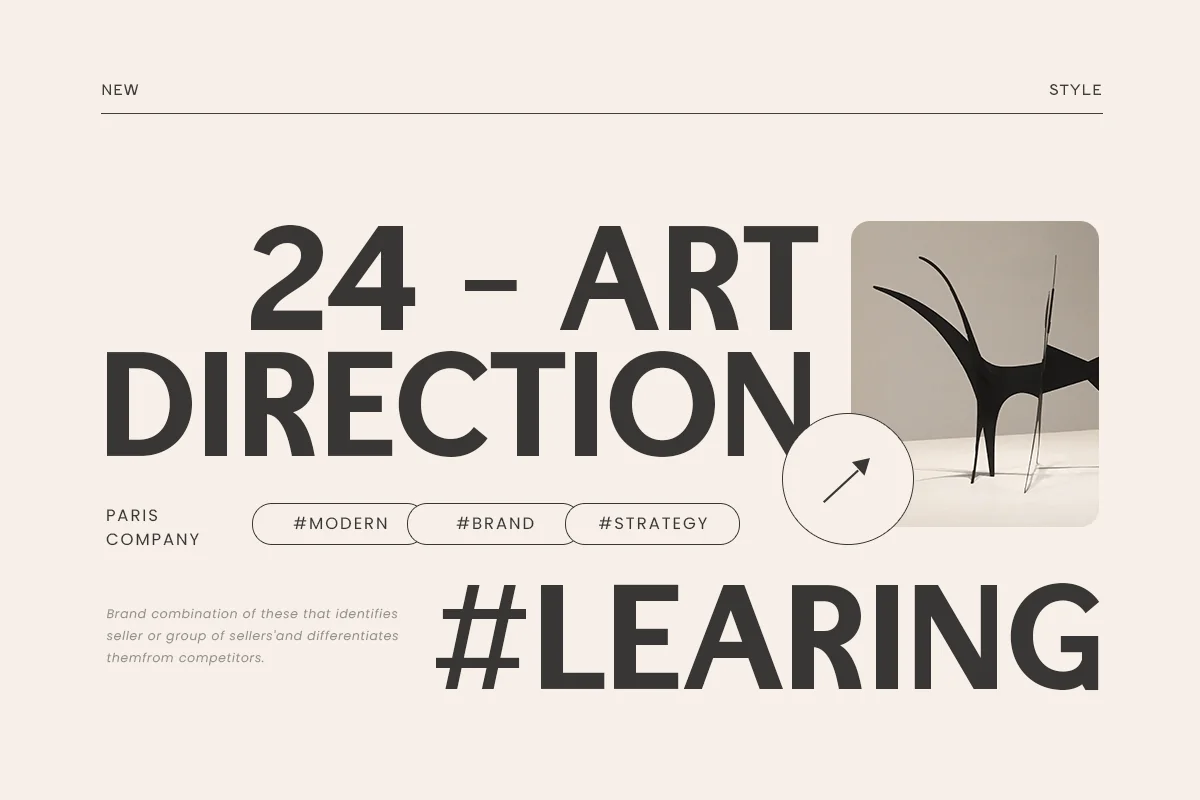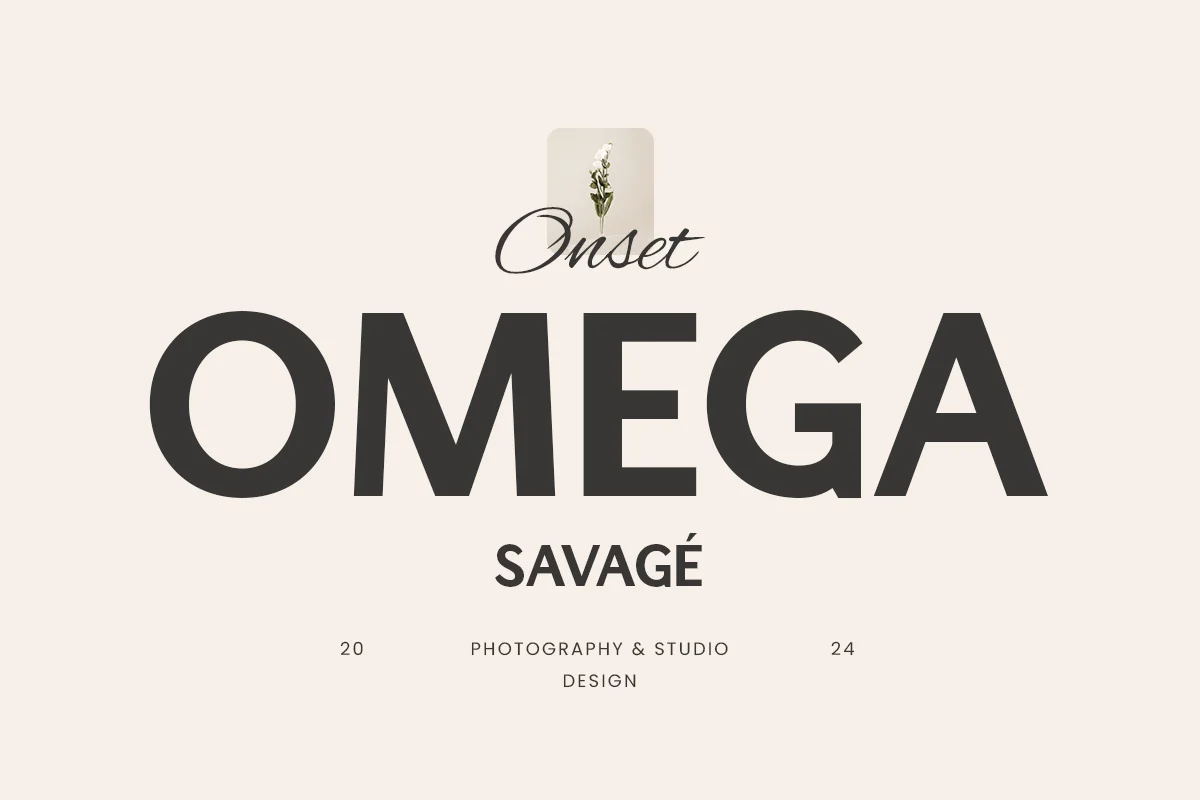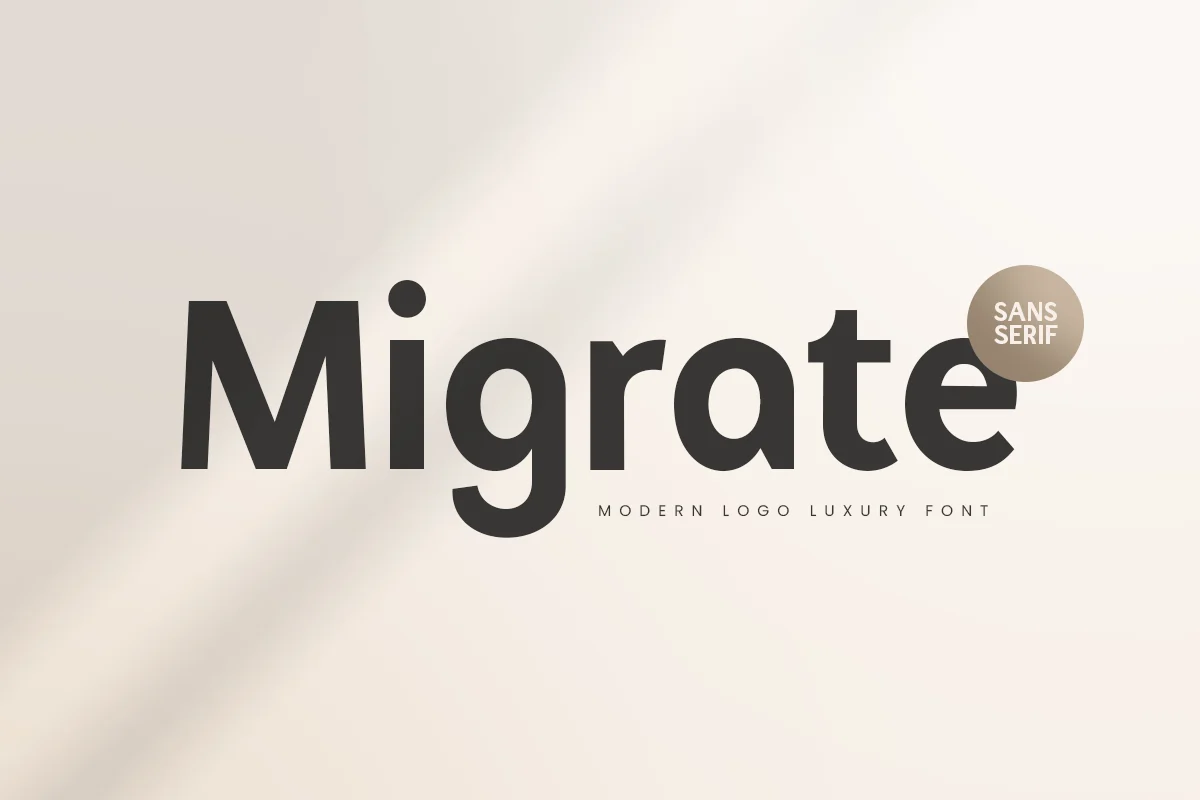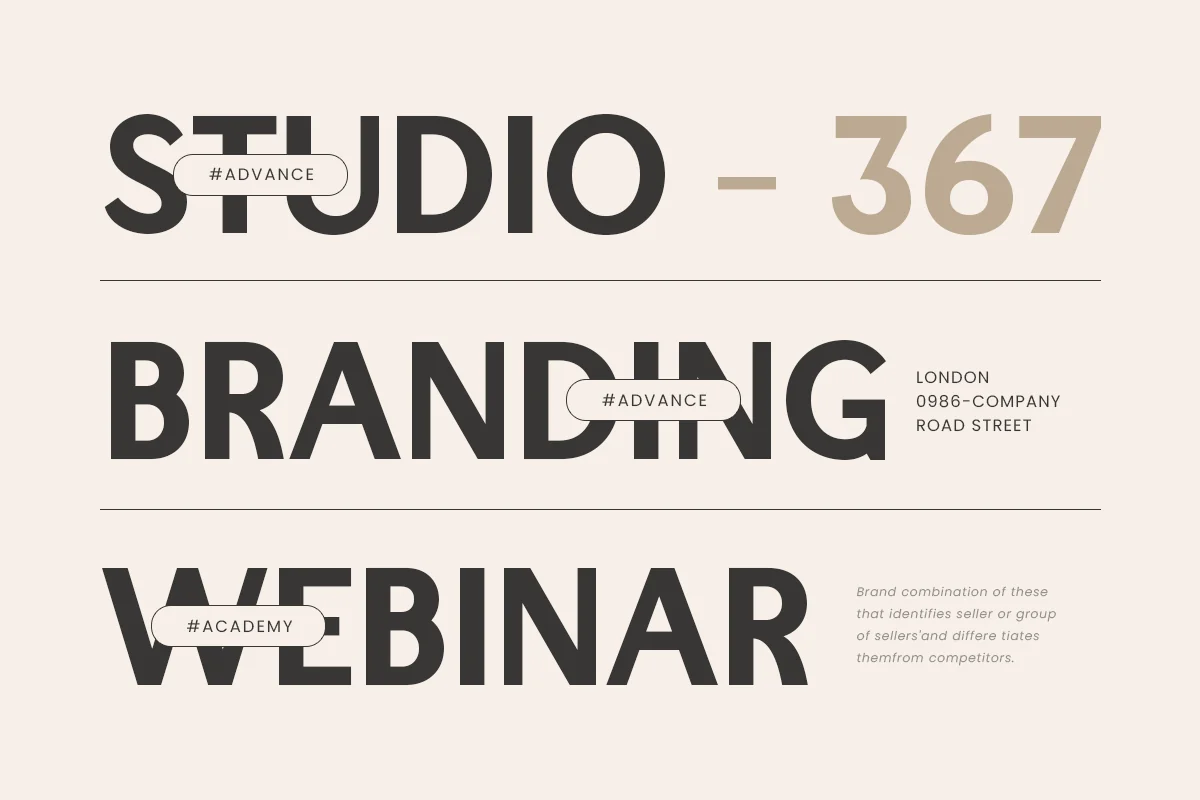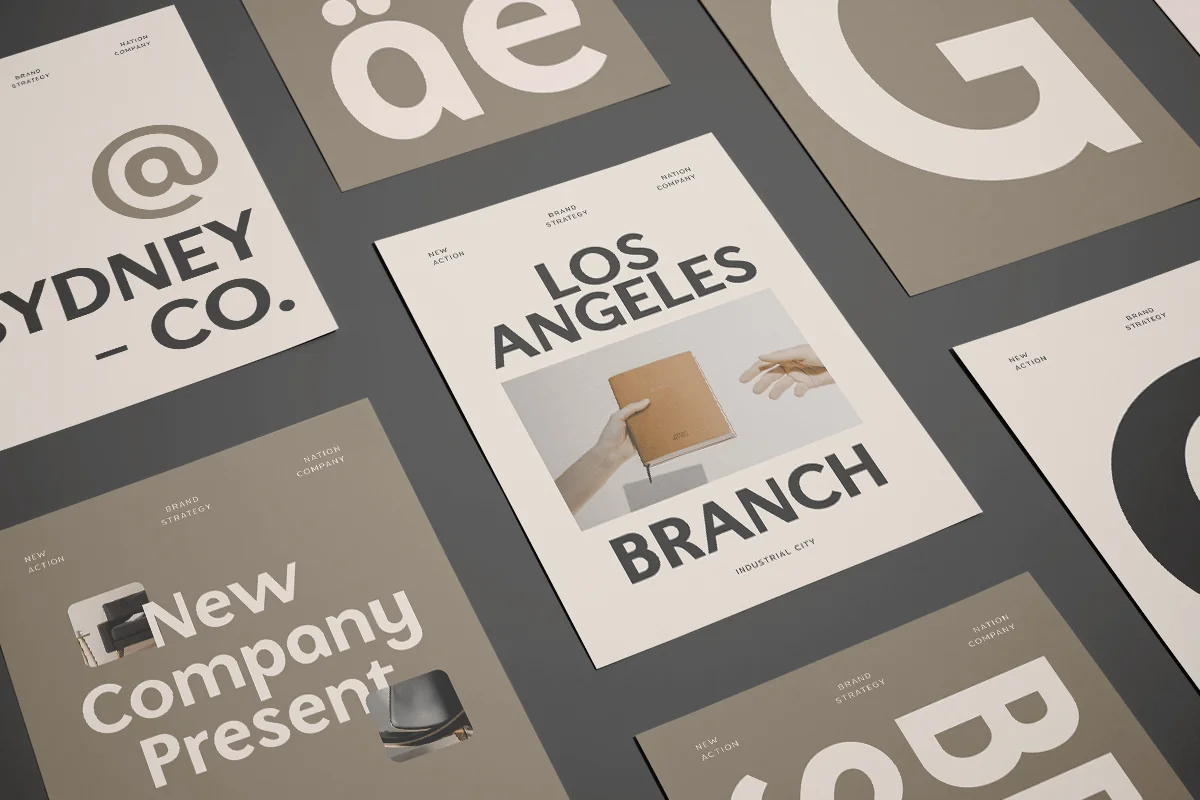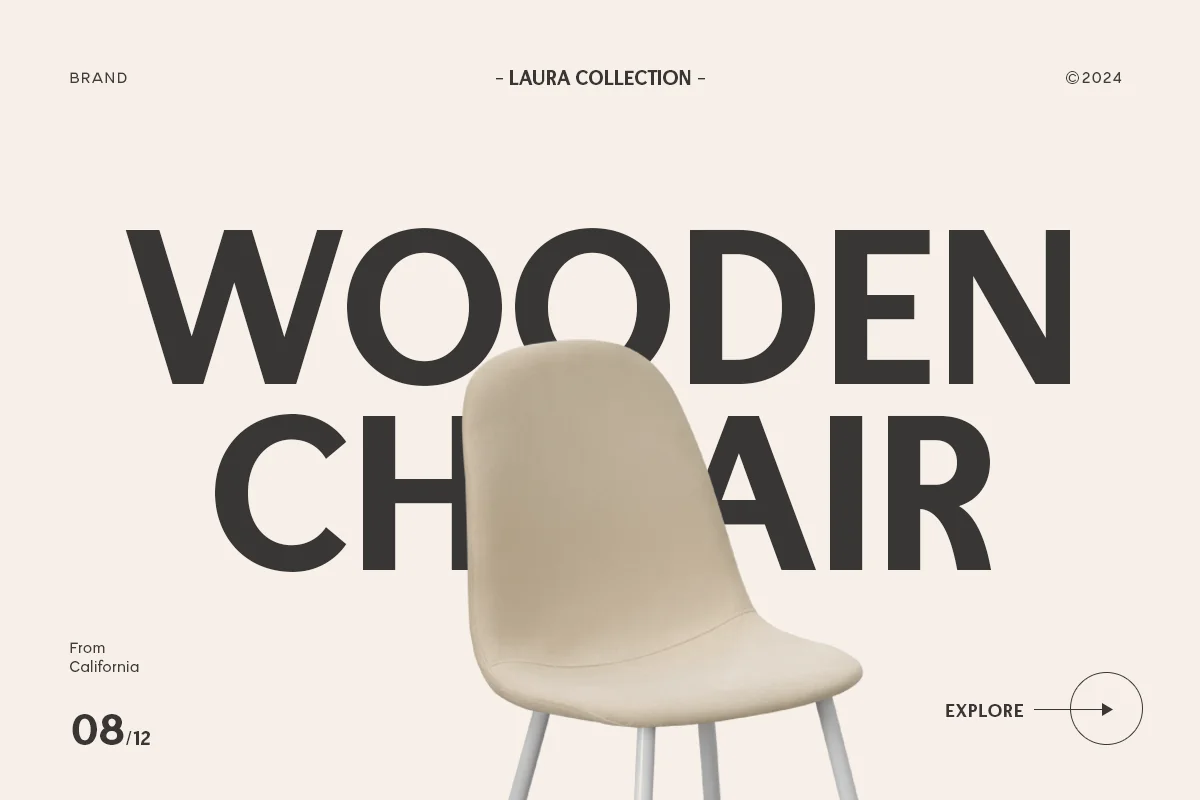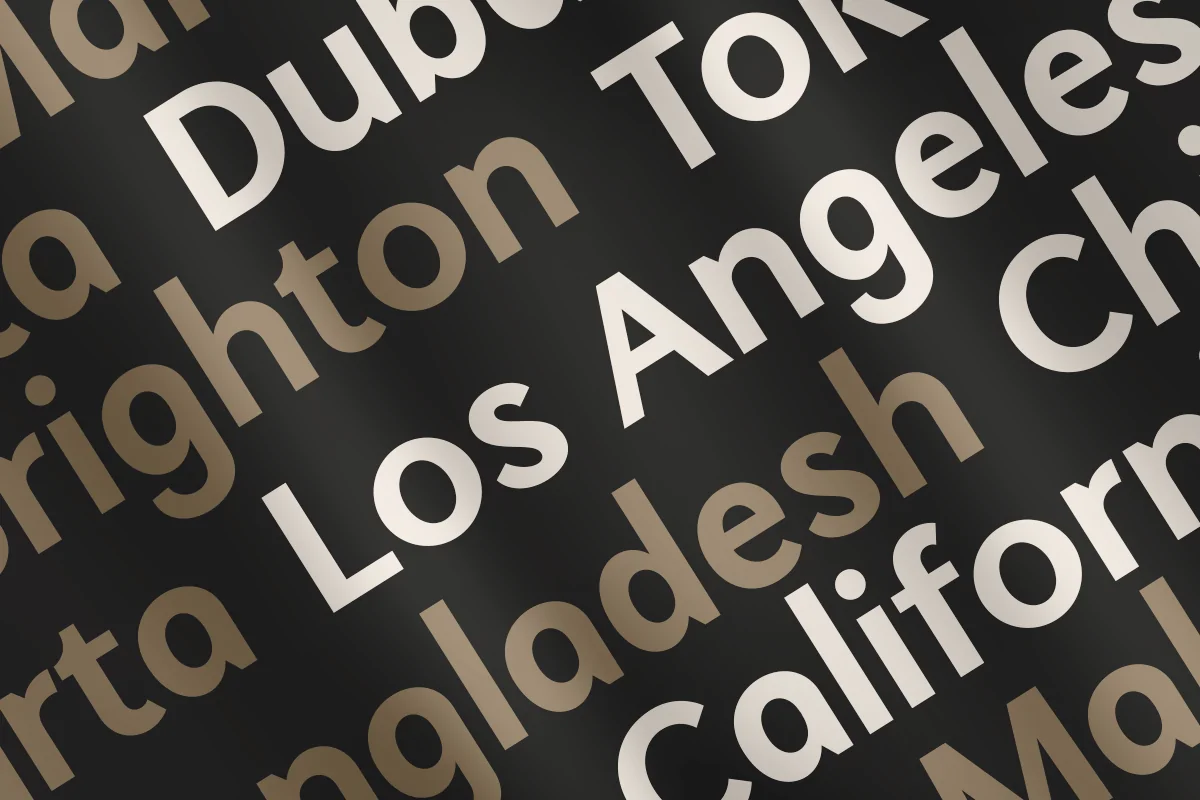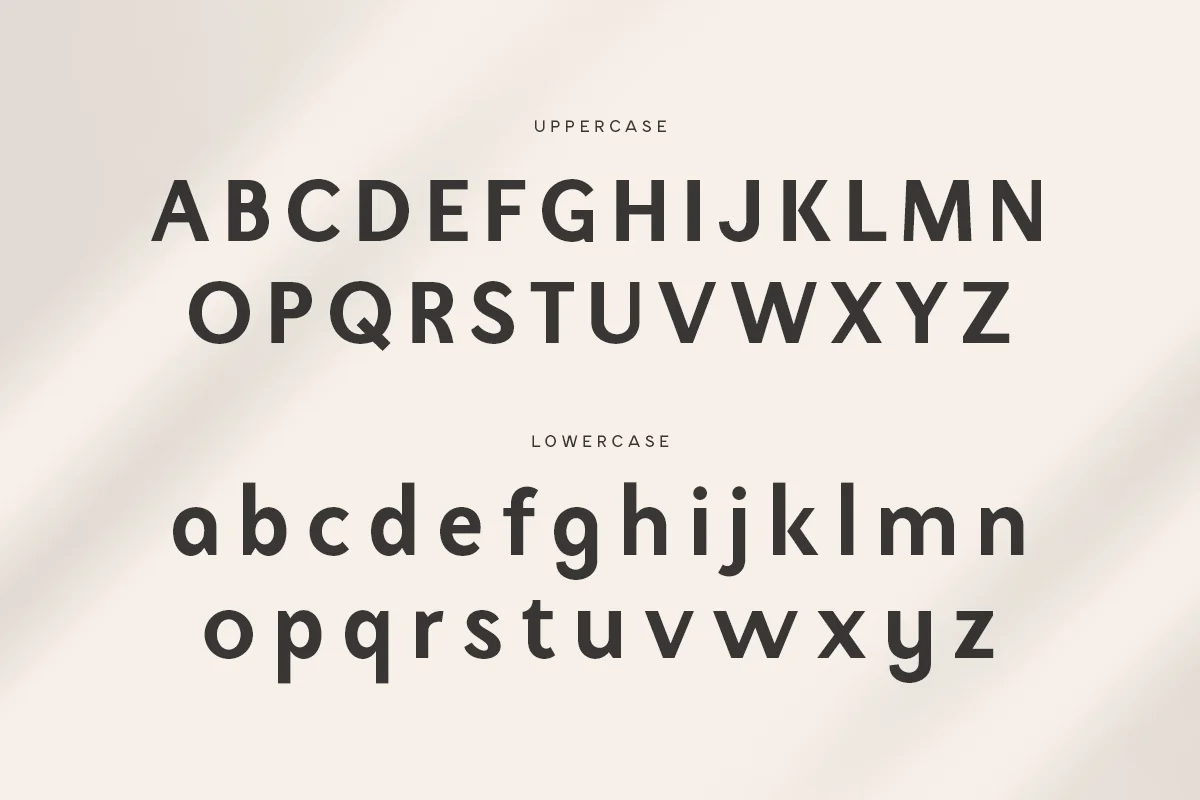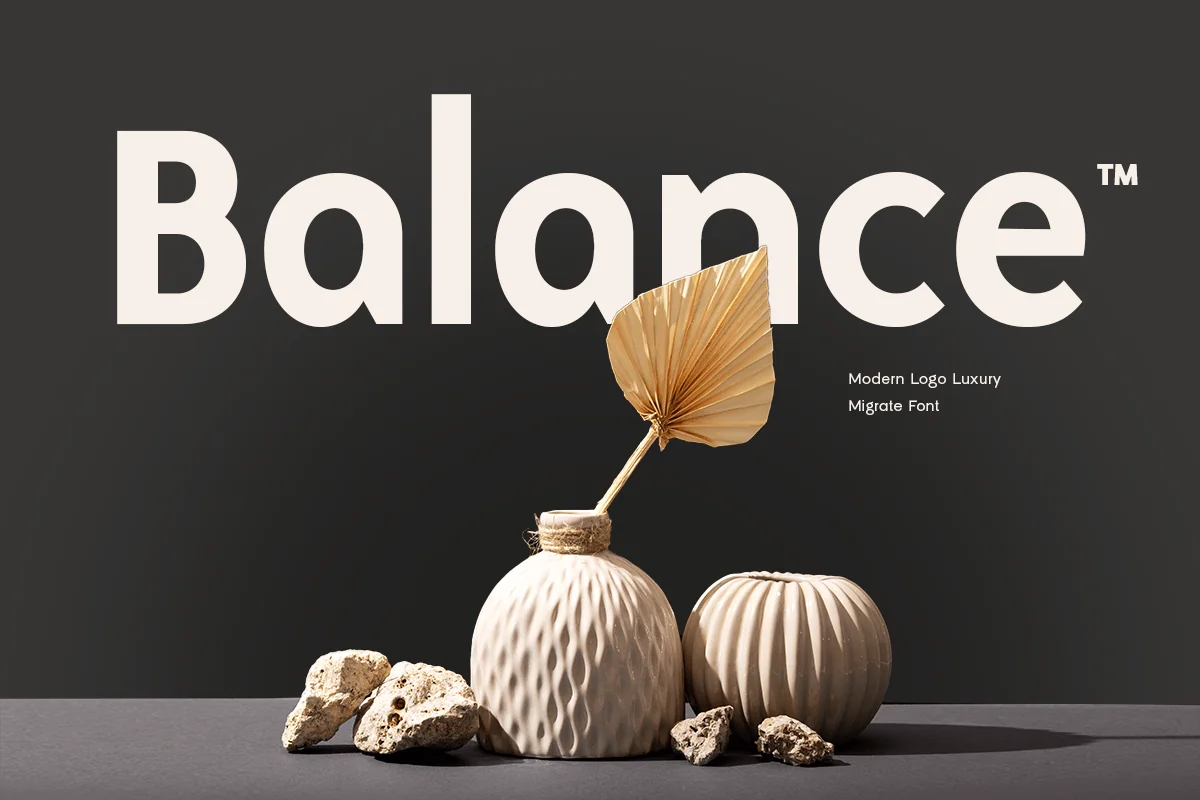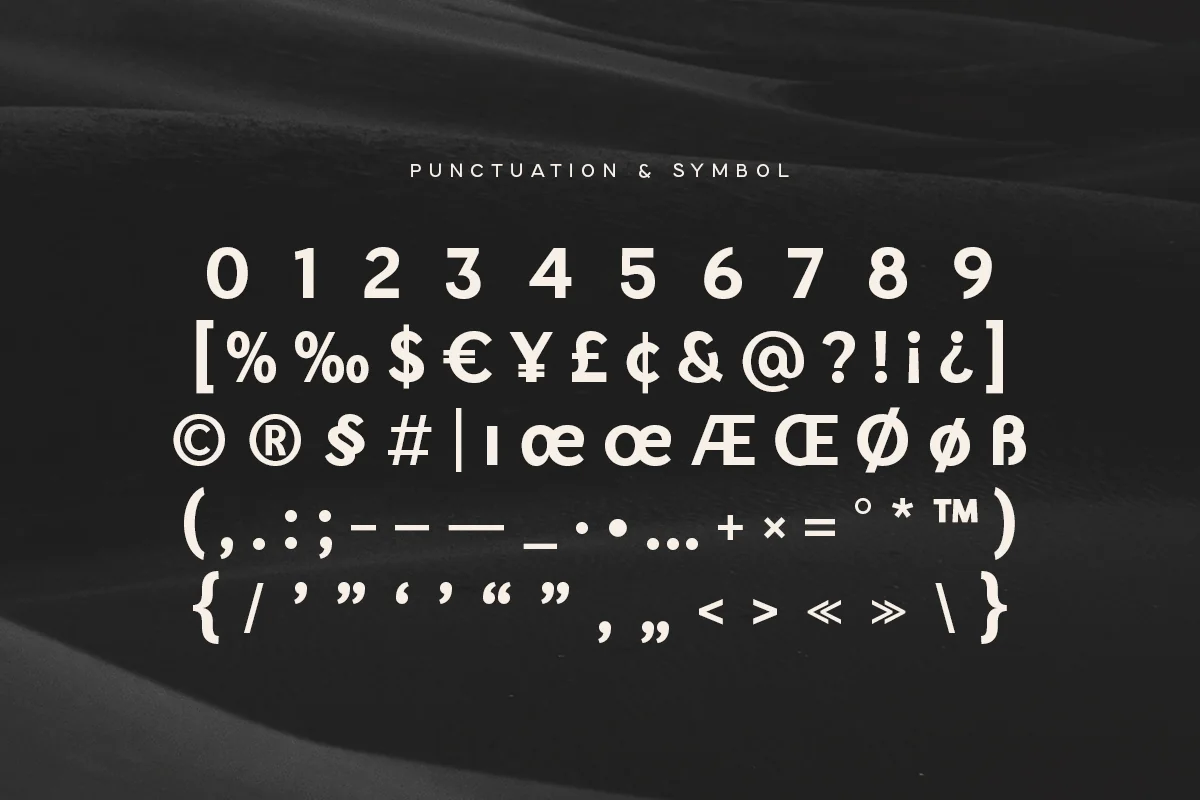
Migrate Modern Font
A Modern Professional Logo Font that special for logo, branding, poster, headline and any project that we created special for Professional and Modern branding needs that will give you more Unique look, with unique shape will be ready to add value of your brand. It so nice to leverage designer or product owner that need solutions to make their design look more Professional and modern. And specially for this font, We prepared any unique characters to help you create unlimited variations for your creative needs.
Migrate Modern font ready with:
- Any options to get creative variations
- Preview as a inspirations that you can do with this font
- Ready with Lowercase and Uppercase characters